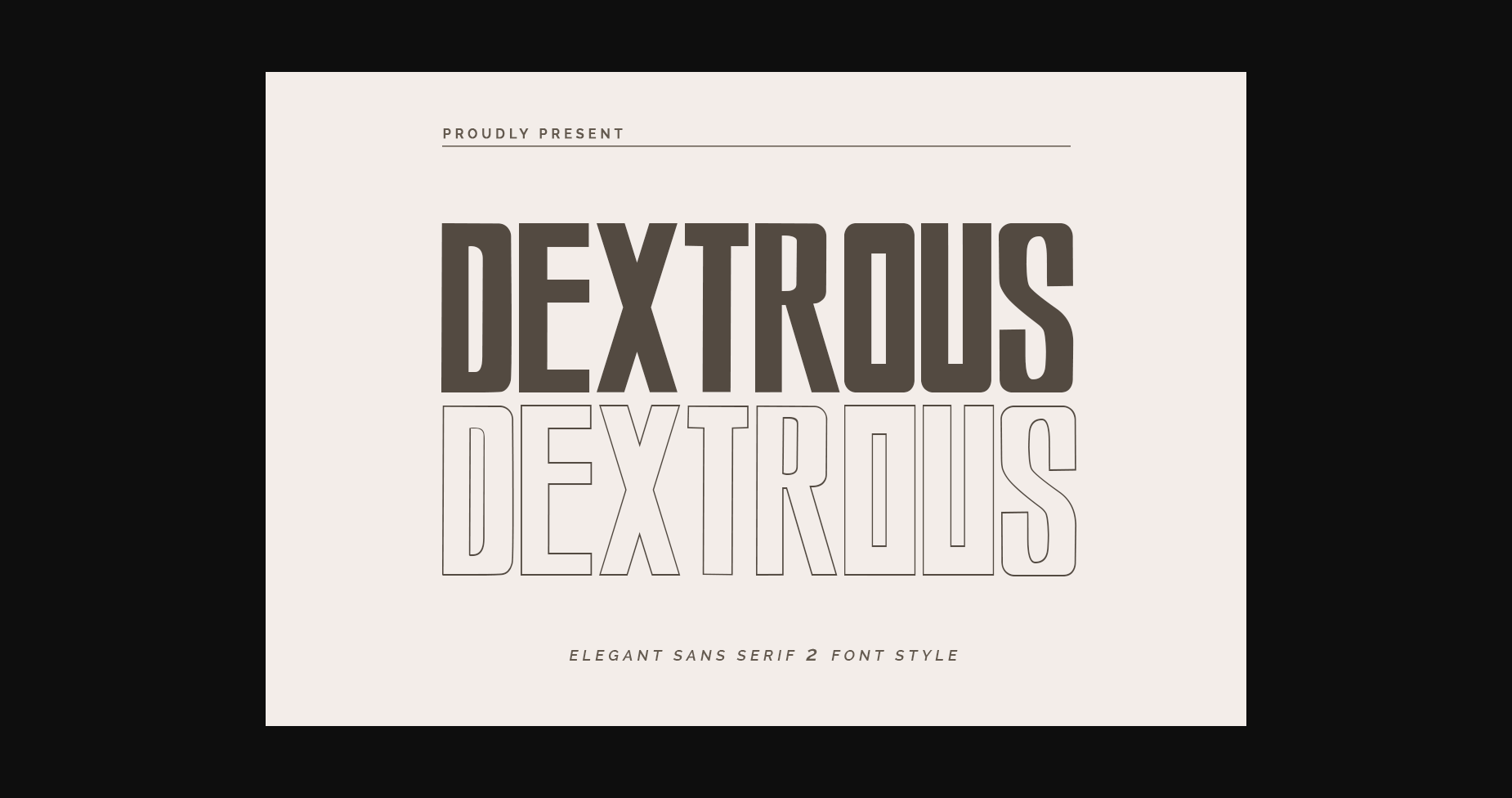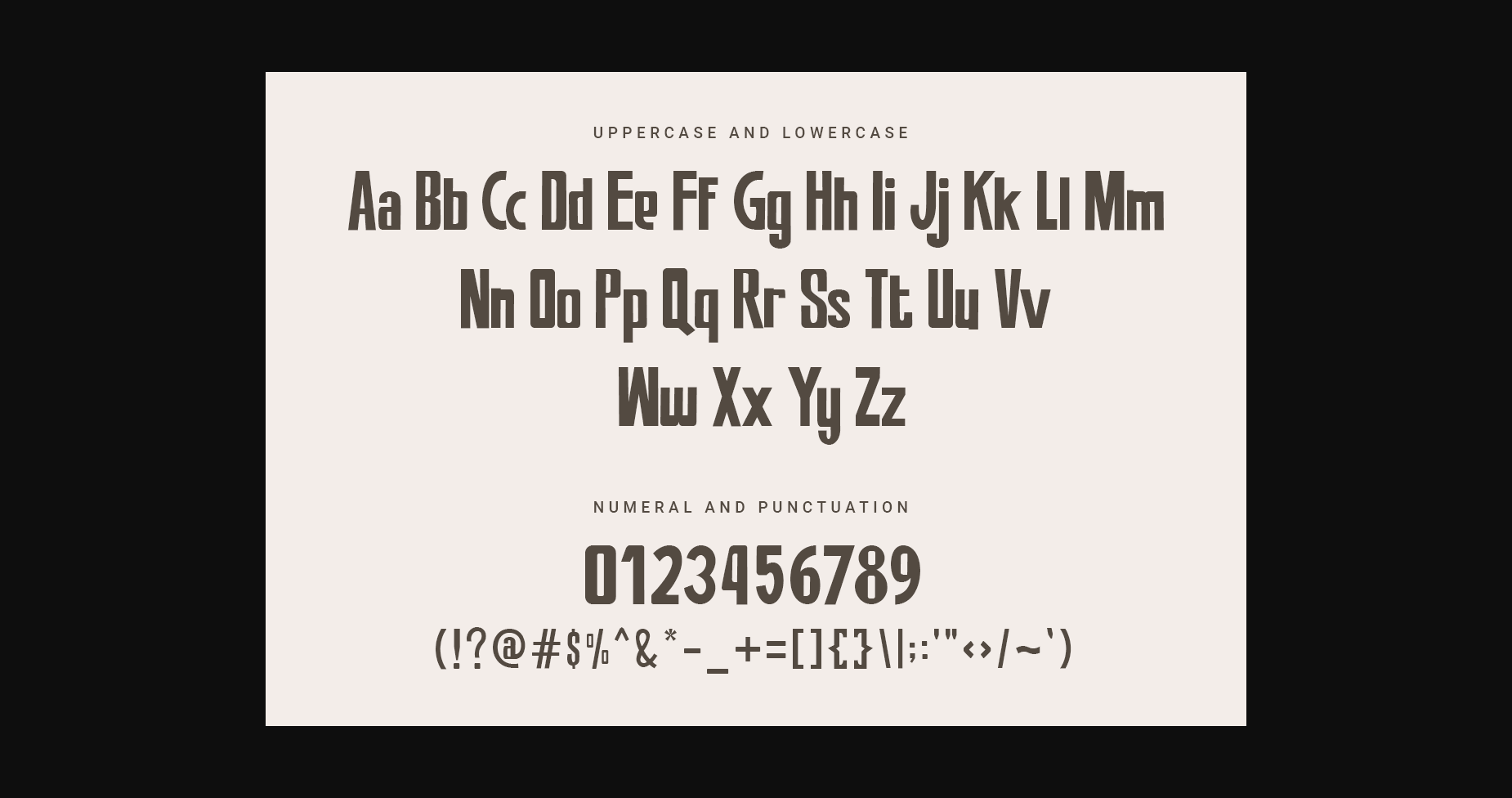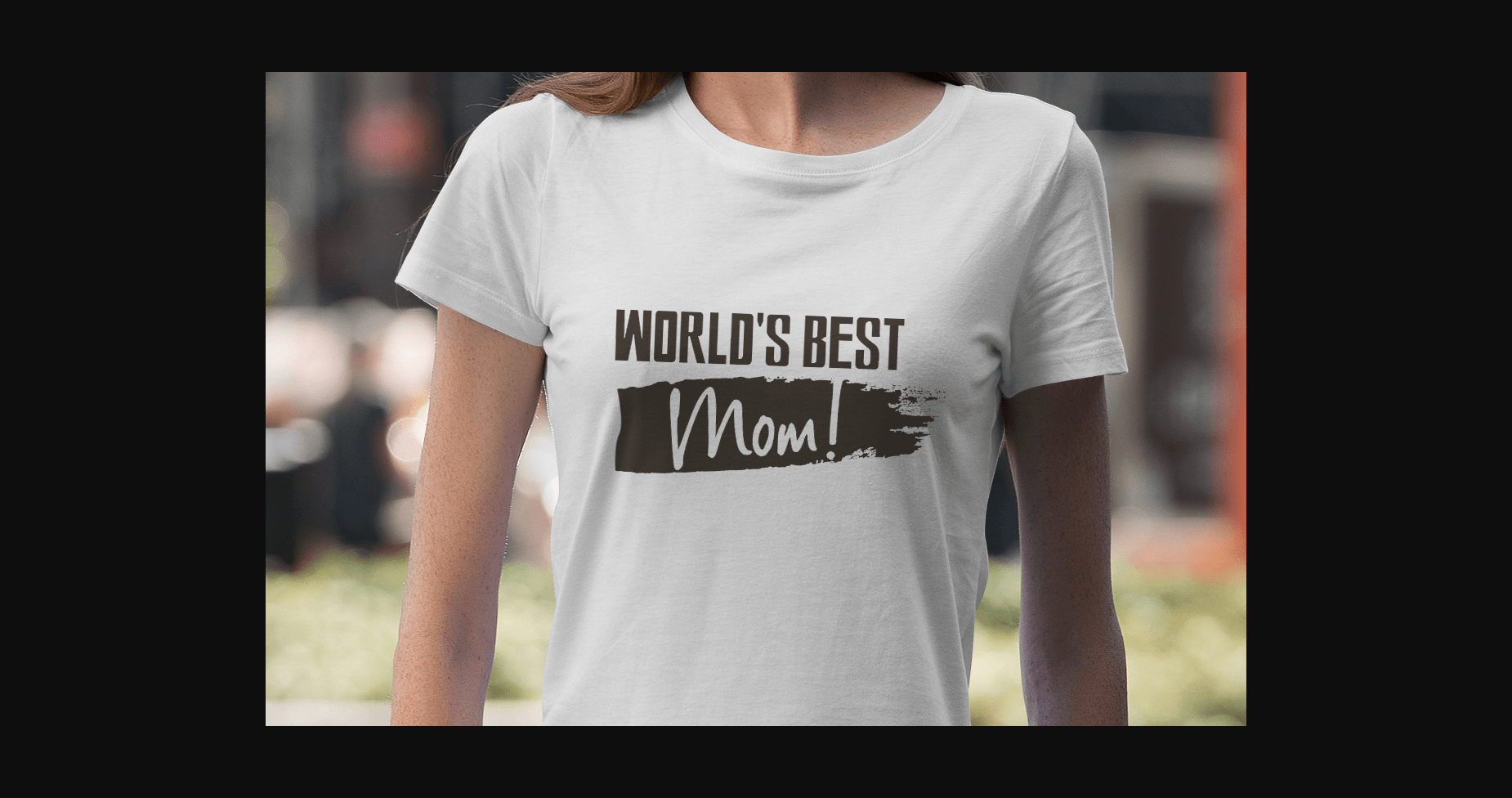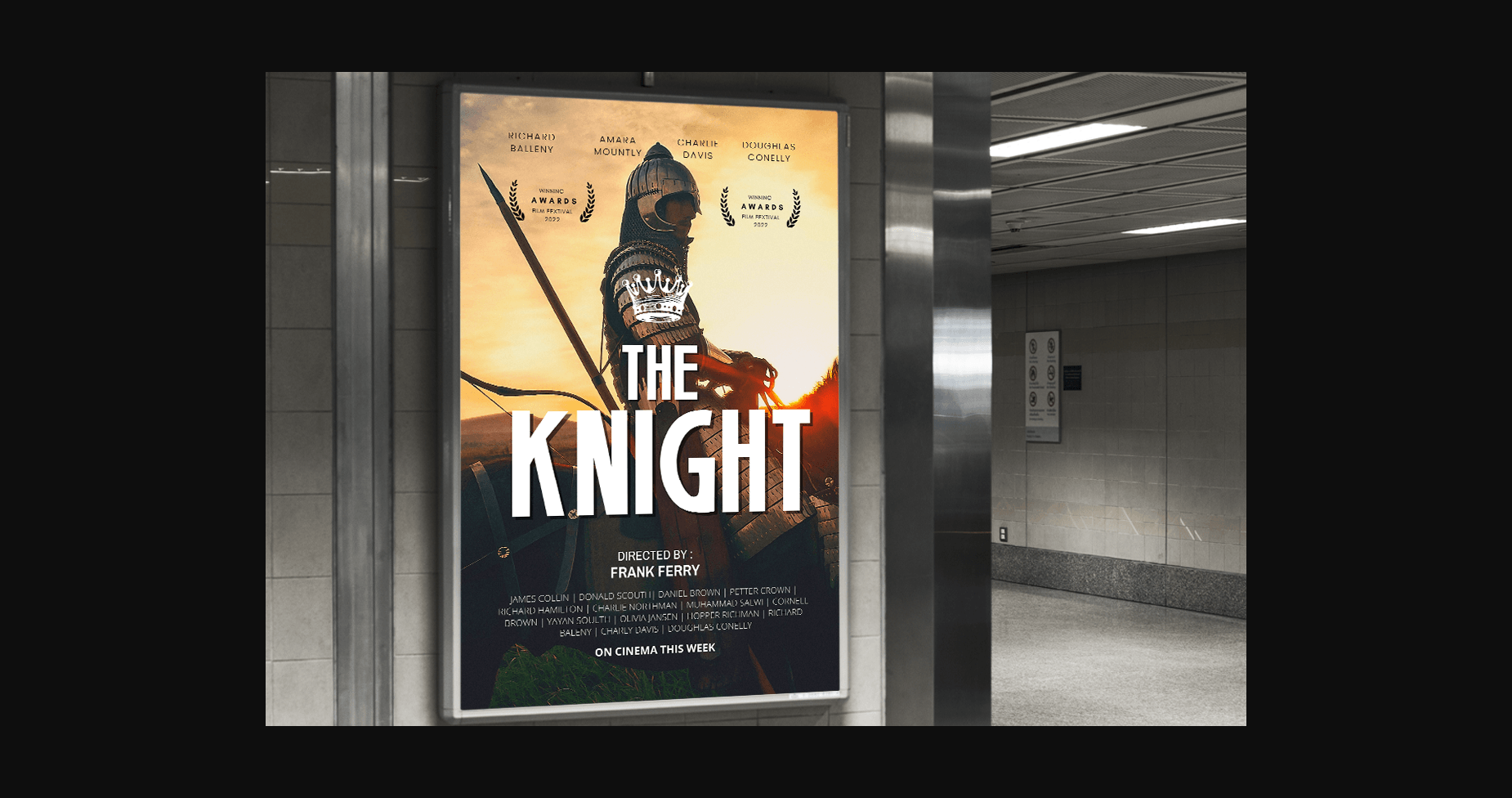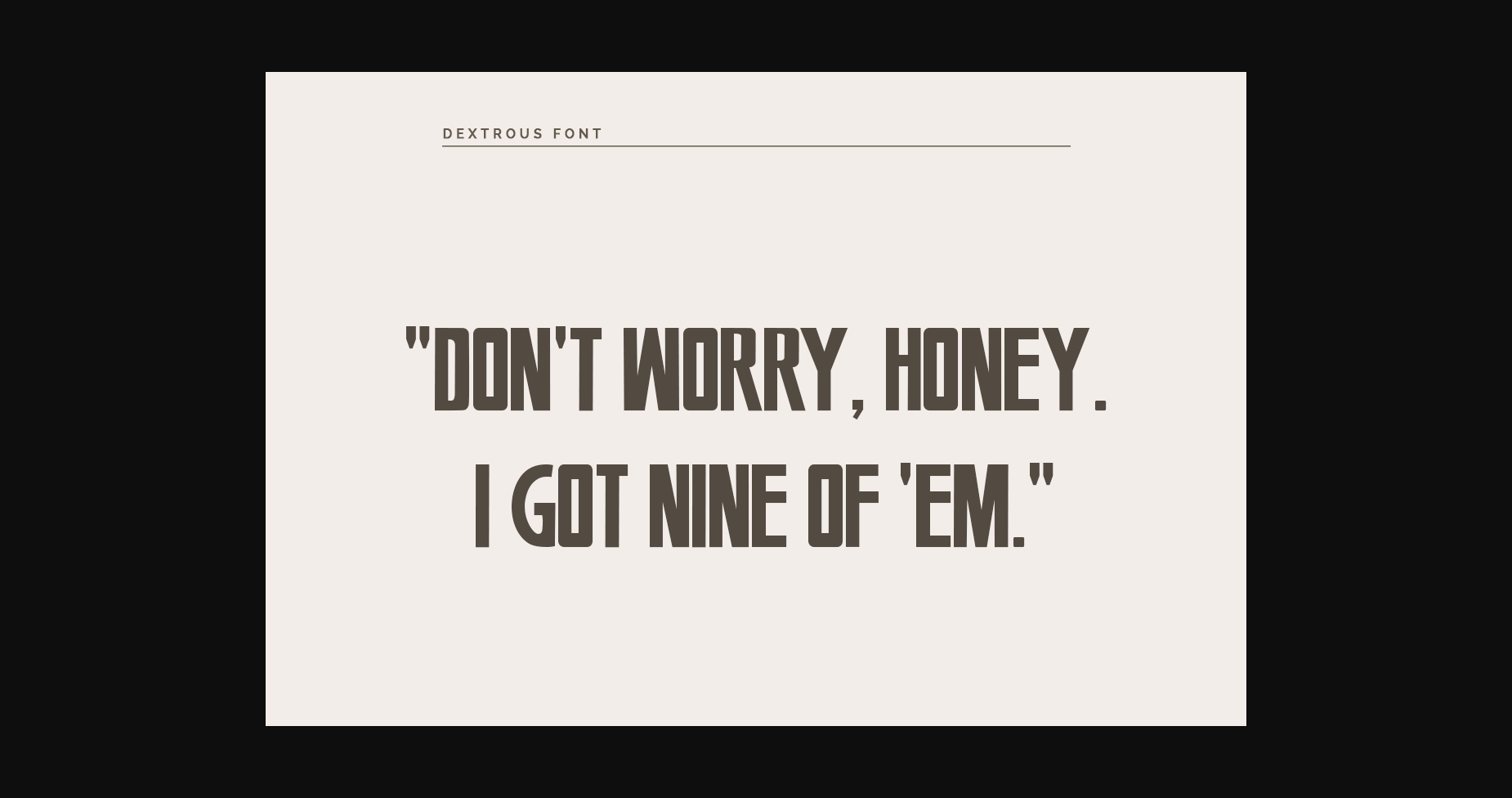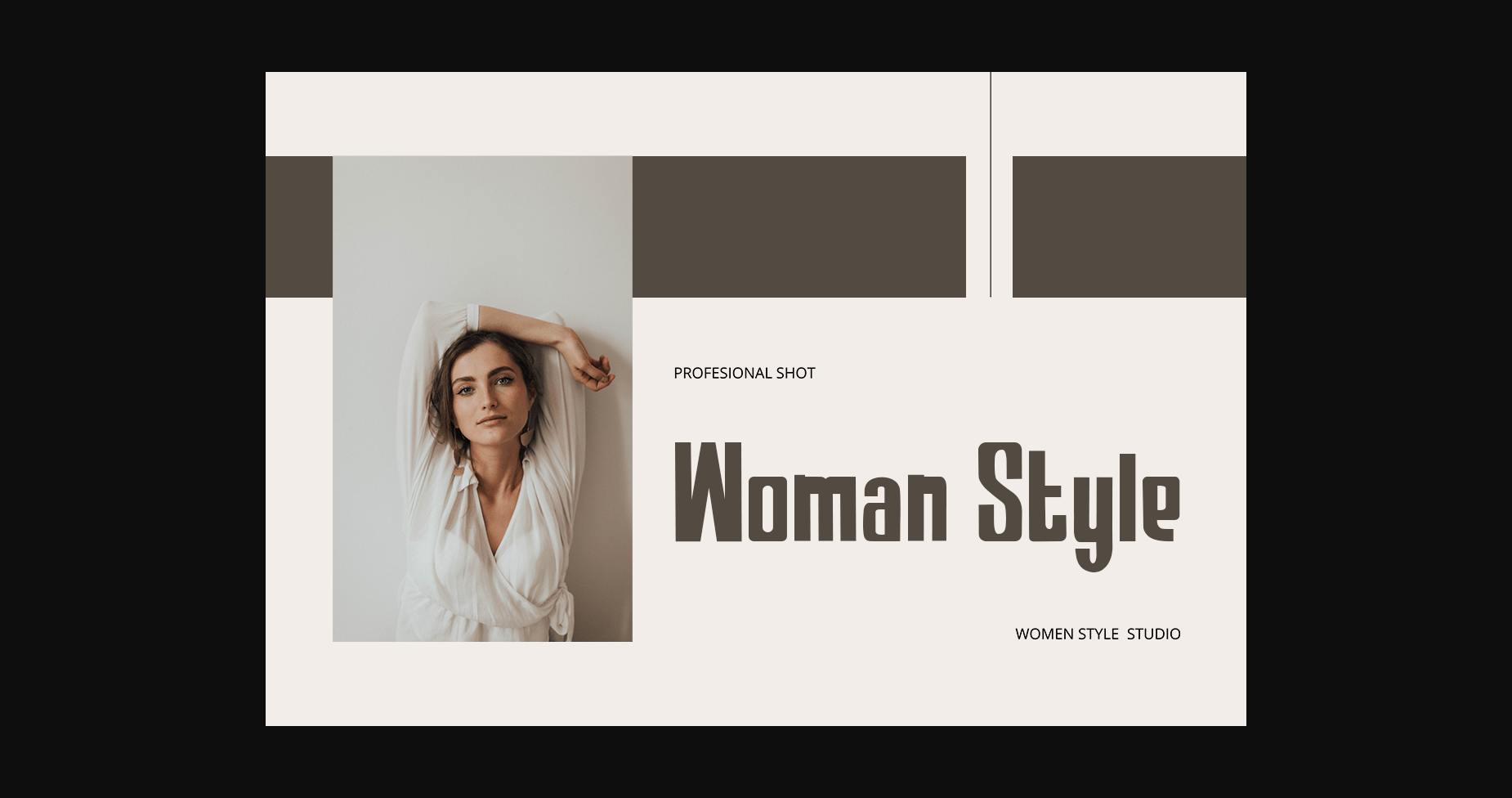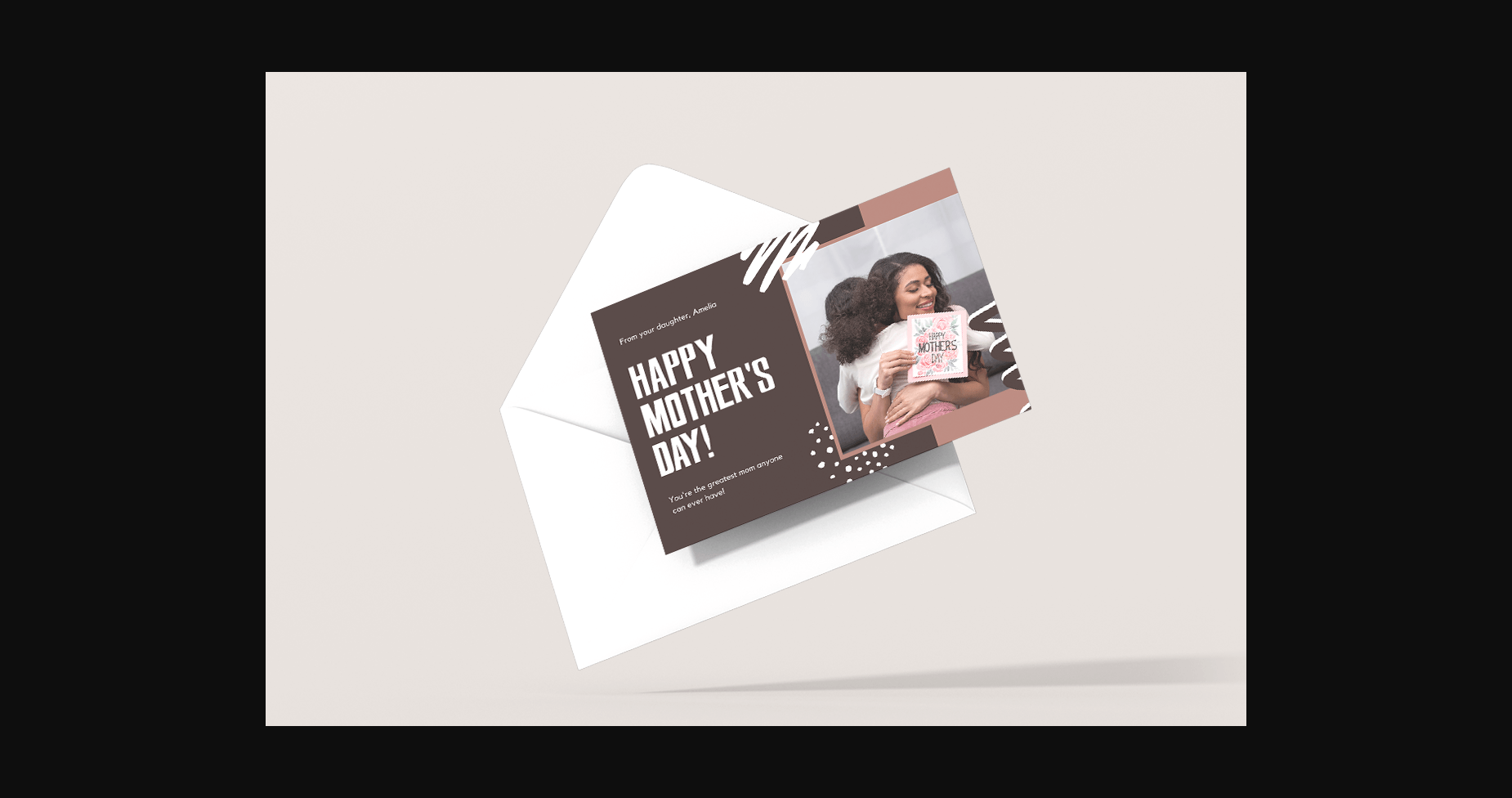
Dextrous Font
About Dextrous Font
Dextrous is a modern, clean and elegant sans serif font that has a lot of possibilities. It is perfectly suited to create prestige logos, headlines and even beautiful wedding invitations. It’s easy to read and looks great in any project.